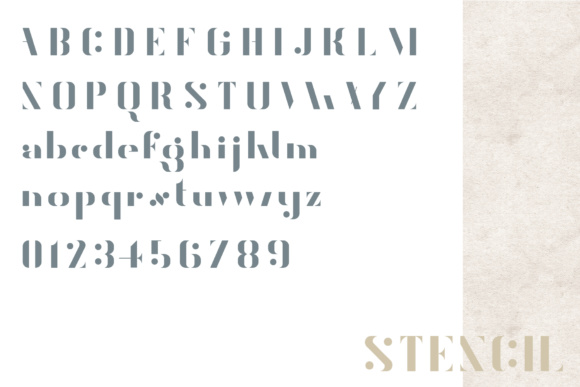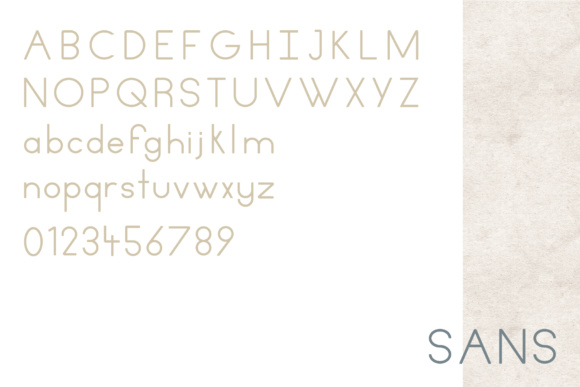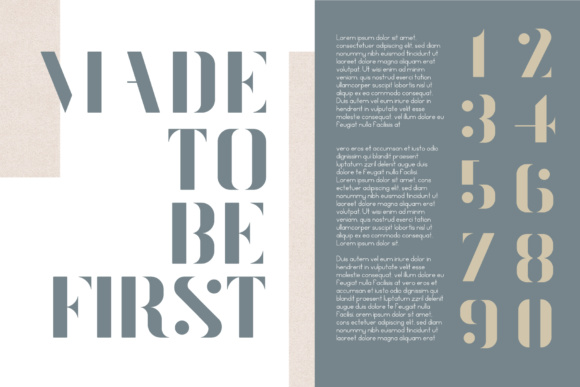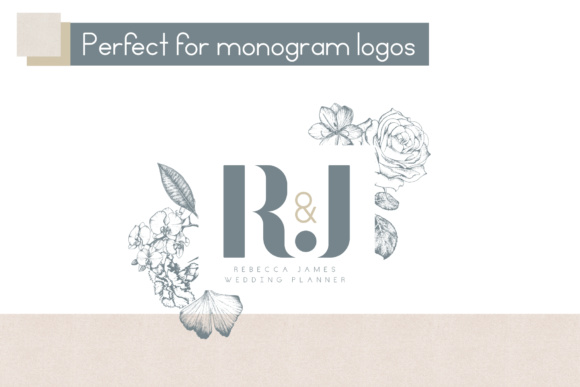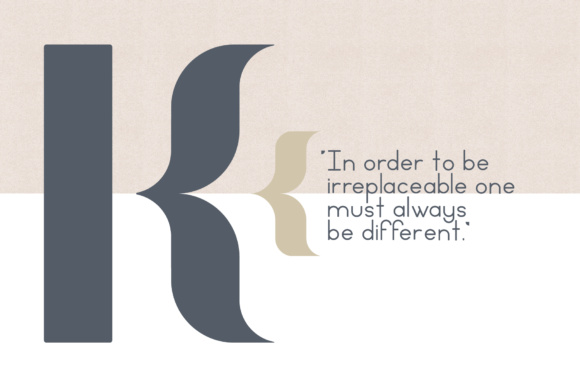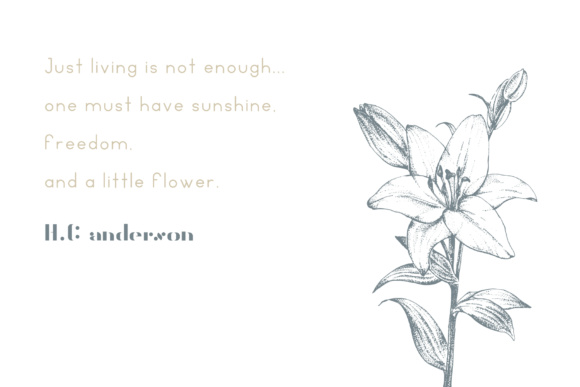
Introduction to Rhode Font
Rhode is a stunning and minimal stencil font, ideal for use in a ton of different projects.
This beautiful display font will give your works an editorial, elegant edge .
Key Features of Rhode Font